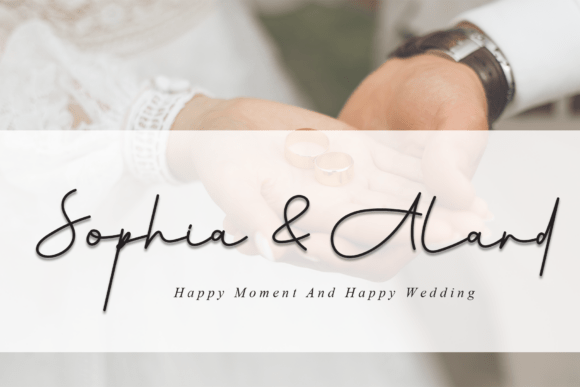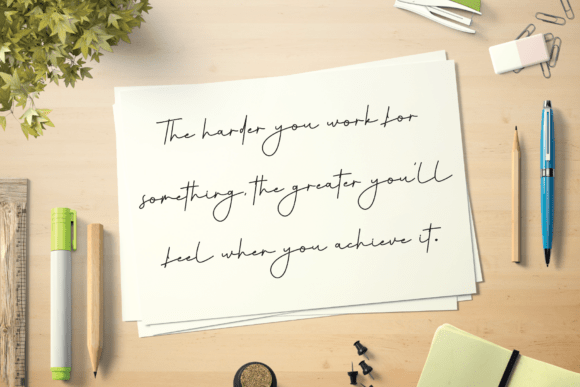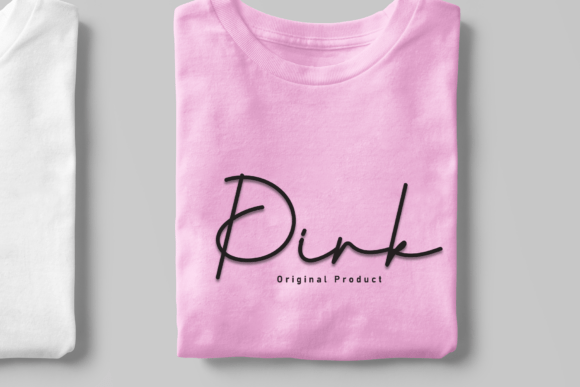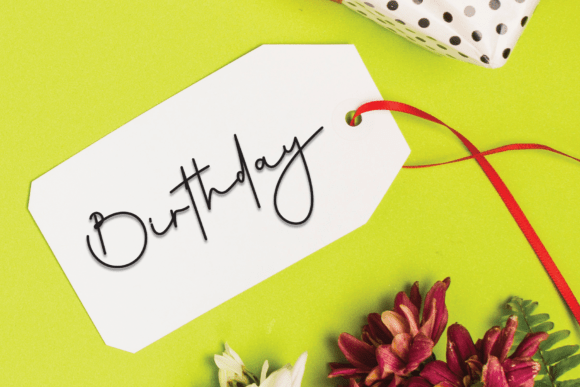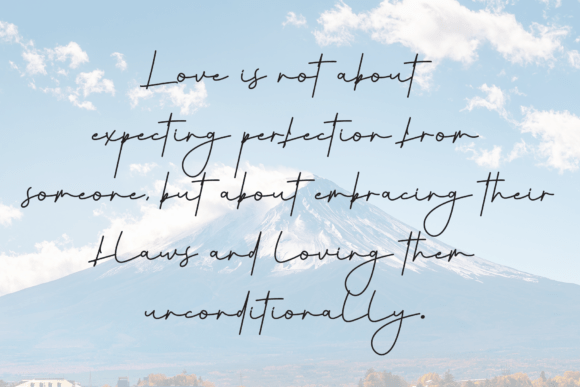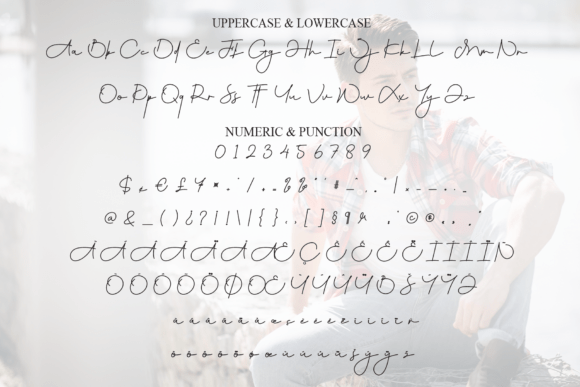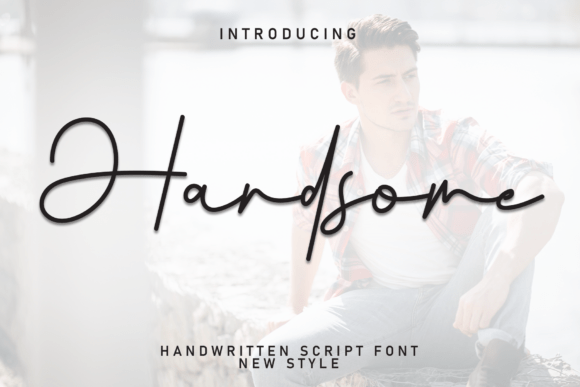
Introducing Handsome Font: Elevate Your Designs with Elegance and Modern Flair
In the world of typography, a font can make or break the aesthetic of a design project. For designers and crafters seeking to infuse their work with a touch of sophistication and modernity, the Handsome Font is an exceptional choice. This stylish handwritten script font seamlessly blends elegance with a contemporary edge, making it perfect for a wide range of applications, from branding and invitations to social media and beyond.
The Essence of Handsome Font
Handsome Font is characterized by its flowing strokes and organic curves, which bring a sense of warmth and refinement to any project. Its design is rooted in the elegance of handwritten scripts, yet it carries a modern flair that sets it apart from more traditional typefaces. This unique combination makes Handsome Font an excellent tool for designers looking to add a personal, refined touch to their work.
Key Features of Handsome Font
- Elegant and Modern Design: Handsome Font boasts a stylish and contemporary design that is both sophisticated and approachable.
- Handwritten Script Style: Its handwritten nature gives it a personal and unique feel, perfect for adding character to designs.
- Flowing Strokes and Organic Curves: The font’s fluid strokes and curves contribute to its warm and inviting appearance.
- Versatile Usage: Suitable for a variety of projects, including branding, invitations, social media posts, and more.
- Effortless Charm: Adds a touch of elegance and charm to any design without appearing overly formal.
Applications of Handsome Font
The versatility of Handsome Font makes it an invaluable asset for designers across various fields. Here are some of the key areas where this font truly shines:
Branding
In the realm of branding, establishing a strong visual identity is crucial. Handsome Font can be used to create memorable logos, business cards, and letterheads that exude elegance and professionalism. Its unique style helps brands stand out while conveying a sense of sophistication and modernity.
Invitations and Events
For event planners and designers, creating invitations that are both beautiful and effective is a top priority. Handsome Font is perfect for wedding invitations, event posters, and save-the-date cards, adding a touch of personal elegance to any celebration.
Social Media and Digital Content
In the digital age, engaging content is key. Handsome Font can elevate social media posts, blog headers, and digital marketing materials, making them more visually appealing and engaging to audiences. Its modern flair ensures that content stands out in crowded digital landscapes.
Tips for Using Handsome Font
To maximize the impact of Handsome Font, consider the following tips:
- Pair with Complementary Fonts: Combine Handsome Font with simpler, sans-serif fonts for contrast and visual interest.
- Adjust Letter Spacing: Optimize letter spacing to enhance readability and aesthetic appeal.
- Experiment with Colors: While Handsome Font looks great in black, experimenting with colors can add different tones and moods to your designs.
- Use for Headlines and Titles: Its stylish nature makes it perfect for headlines and titles, adding an immediate visual impact.
Handsome Font is a versatile and stylish addition to any designer’s toolkit. Its unique blend of elegance and modernity makes it suitable for a wide range of projects, from professional branding to personal invitations. By incorporating Handsome Font into your designs, you can add a touch of sophistication and charm that sets your work apart. Whether you’re a seasoned designer or a crafting enthusiast, Handsome Font is sure to elevate your projects and make them truly unforgettable.